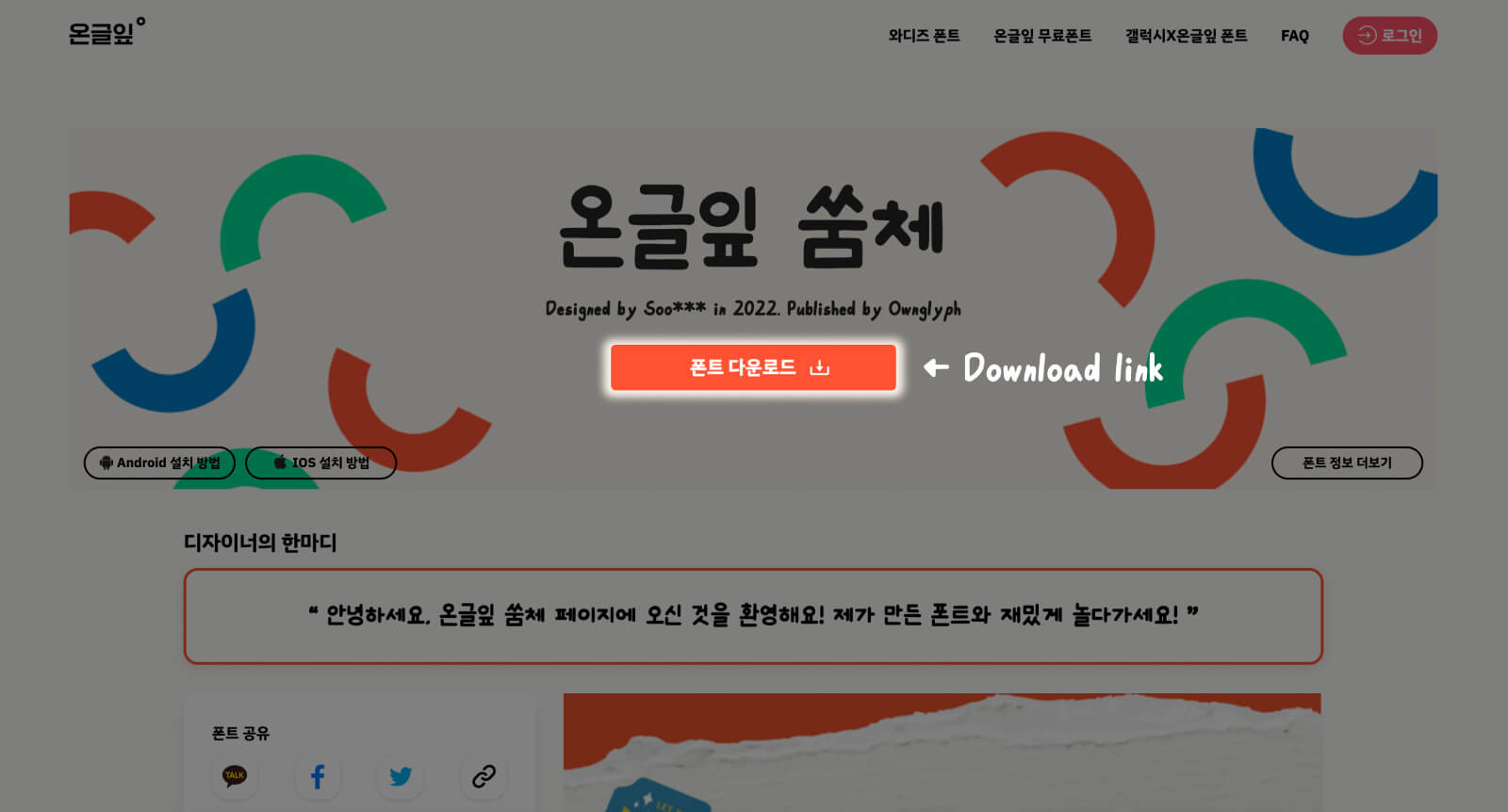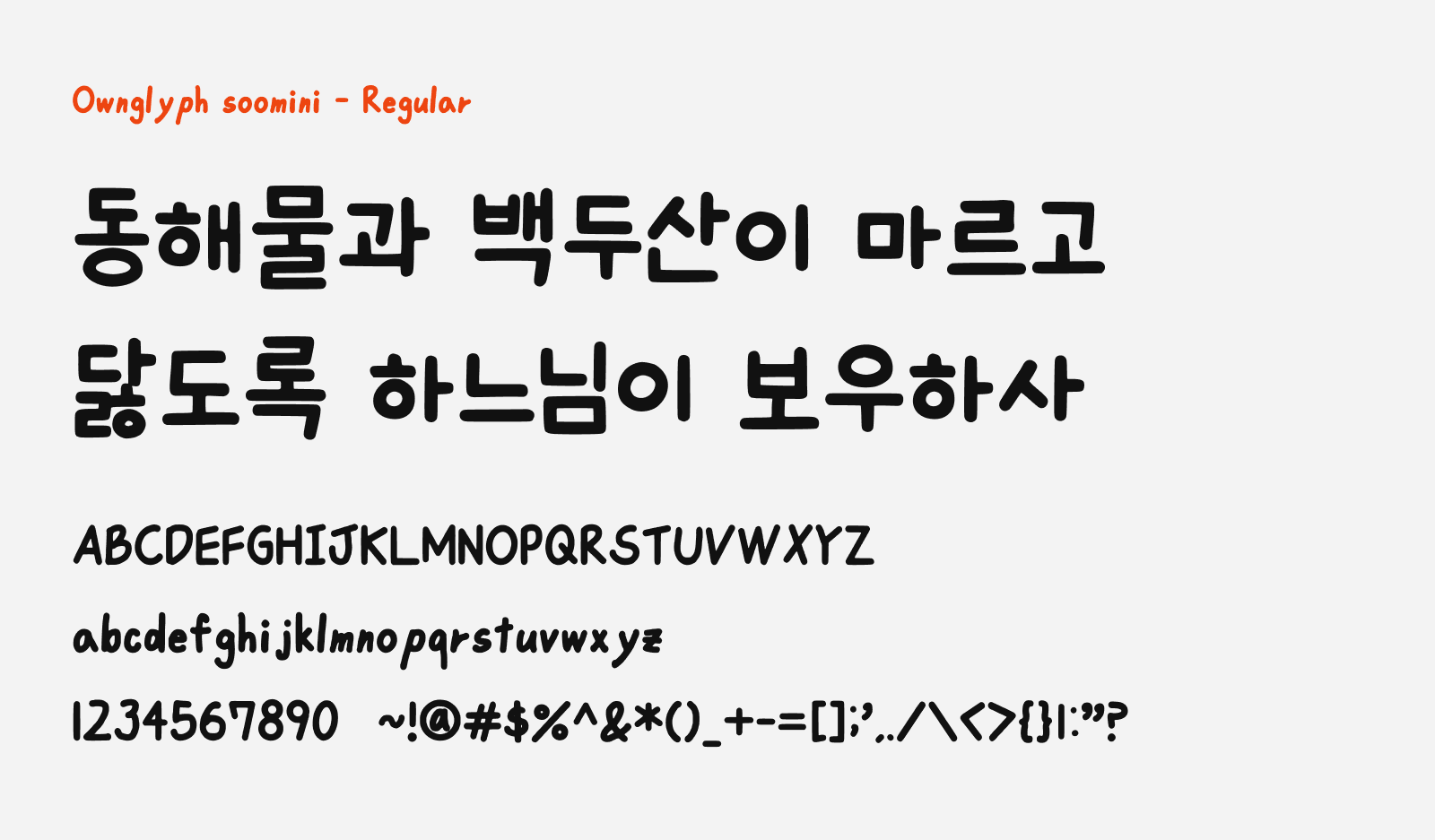
Ownglyph soomini
Preview of Ownglyph soomini, a bold and geometrical handwriting style free Korean font
Ownglyph soomini (온글잎 쑴체) is a bold and geometrical handwriting style Korean font you can download for free. The Korean characters were hand drawn with very straight and calculated way, making it somewhat neat and geometrical. But still, it retained the handwriting characteristics with the playfulness on the balance and size, especially with the latin characters, creating this fun contrast between the Latin and Korean words.
Ownglyph soomini Days was created with Ownglyph, a now decommissioned font creation service from Korea. It comes with one weight, and supports Korean and basic latin glyphs. This font works well for cute and creative art designs. You can download this font for free and be used on personal and commercial projects.